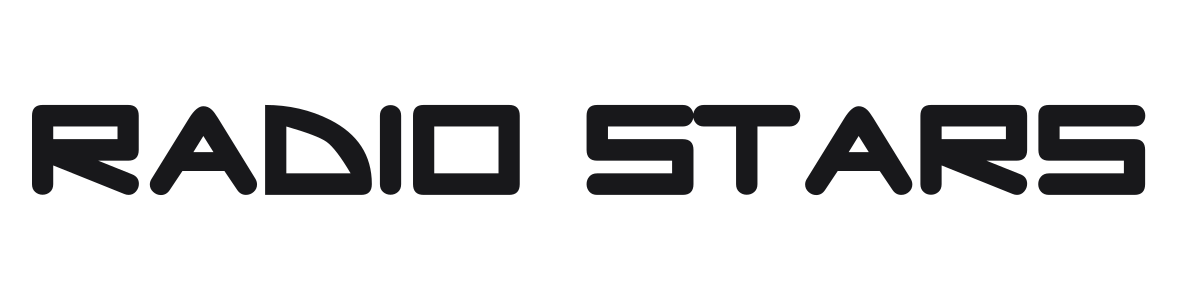
Radio Stars
Radio Stars is a wide, heavy geometric display face from Ray Larabie with squared-off letterforms that feel like they belong on the hull of a spacecraft. The bold proportions and expansive width give each character a lot of real estate, making it impossible to ignore at headline sizes. Built for sci-fi branding, posters, and title screens where you want something that reads as both modern and unapologetically massive.